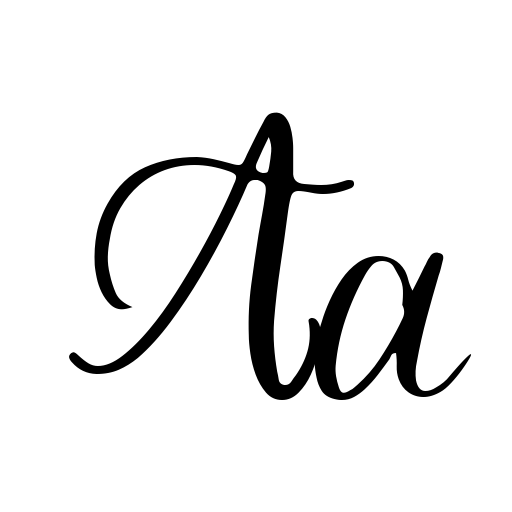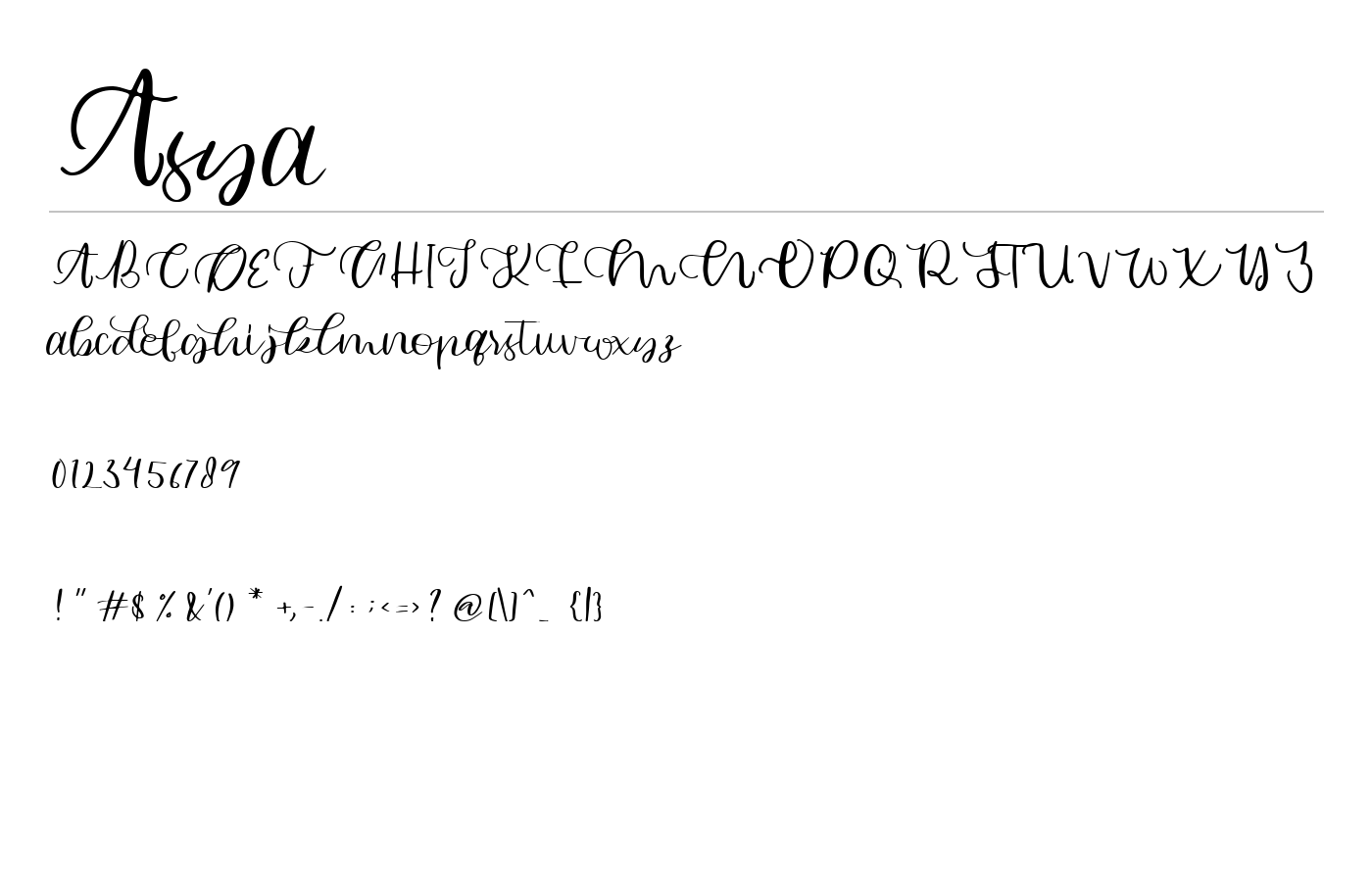
Asya is an elegant script font with a delicate and flowing style that mimics natural handwriting. Its slender strokes and graceful curves create a refined, personal feel, making it ideal for wedding invitations, branding, and feminine designs. This font works beautifully in logos and headlines where a touch of sophistication and charm is desired.
Asya Font